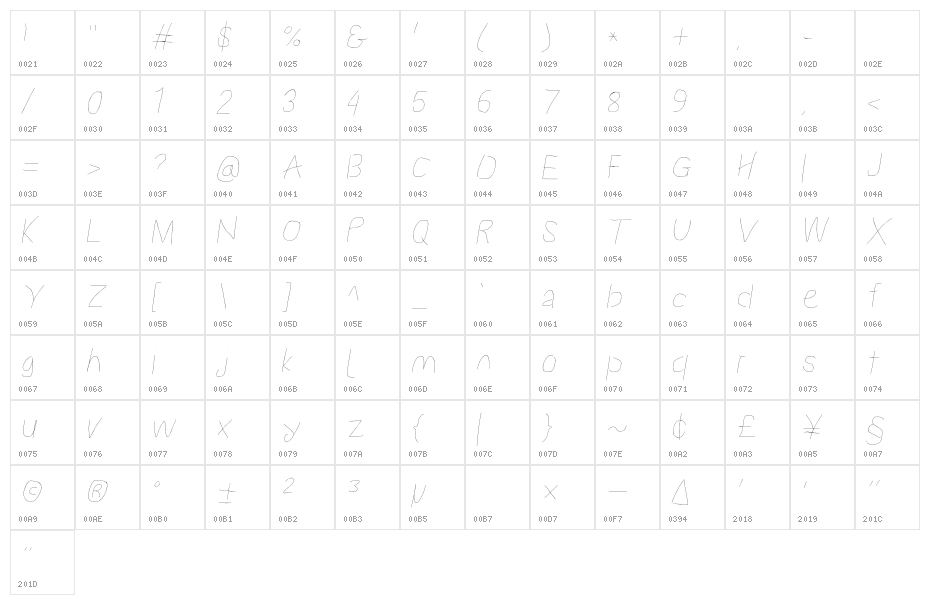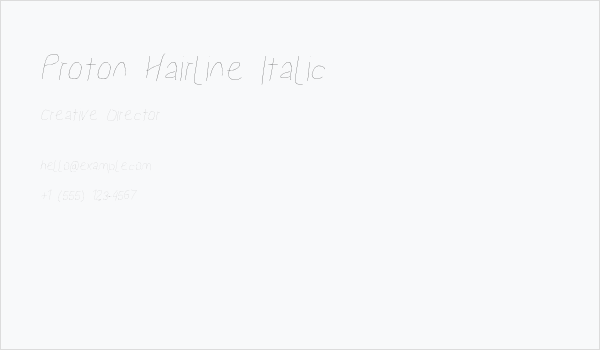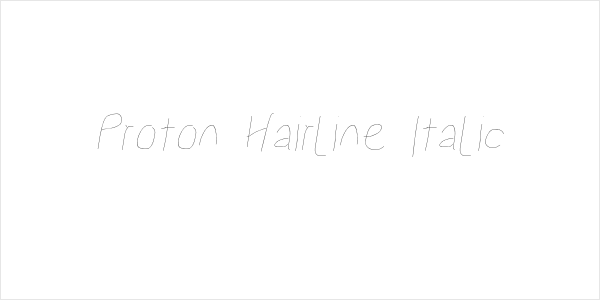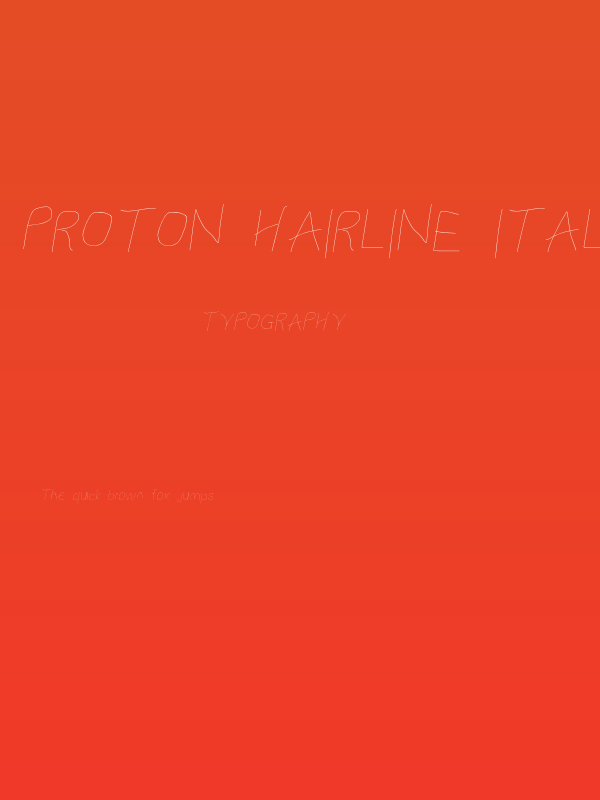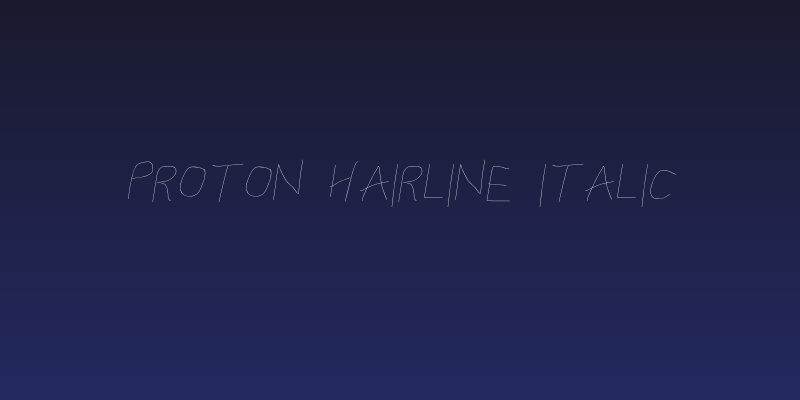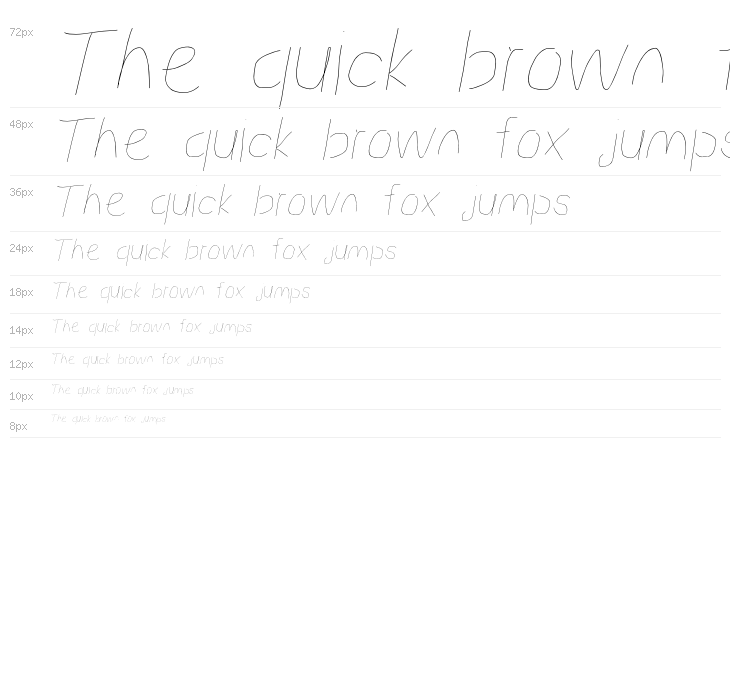
Proton Hairline Italic Font
Proton Hairline Italic Description
This font features a delicate and elegant design with extremely thin strokes, giving it a refined and sophisticated appearance. The letters are slightly slanted, adding a dynamic and fluid feel to the text. The characters maintain a consistent height, contributing to a harmonious and balanced look. The font's minimalistic style is enhanced by its hairline weight, making it ideal for creating a subtle yet impactful visual statement. The spacing between characters is generous, ensuring readability despite the thinness of the strokes. This font is perfect for projects that require a touch of elegance and modernity.